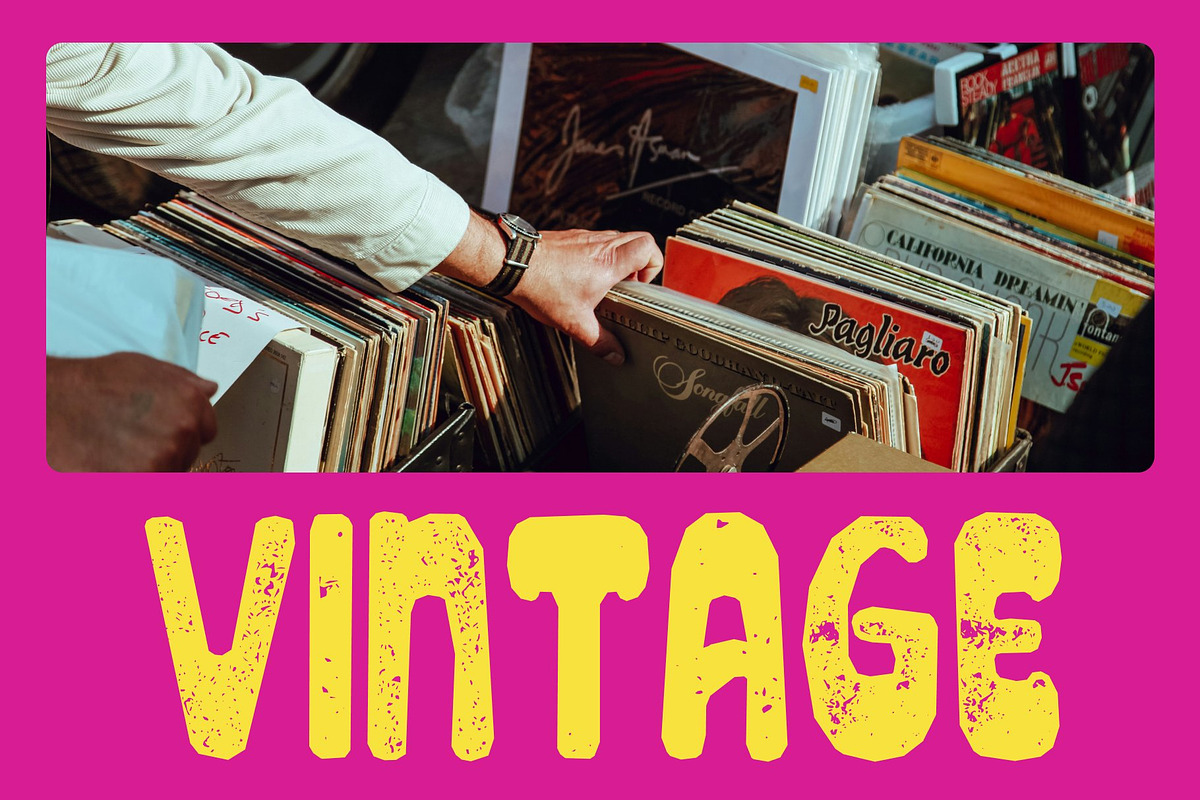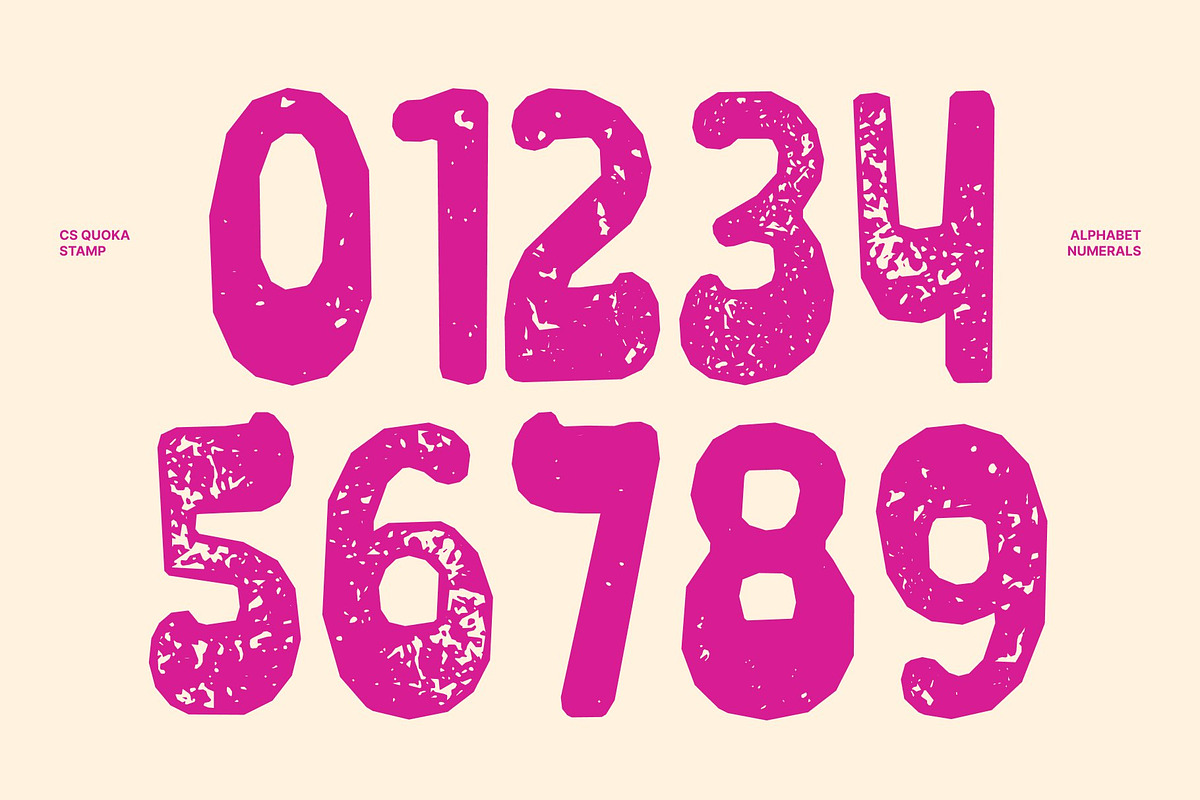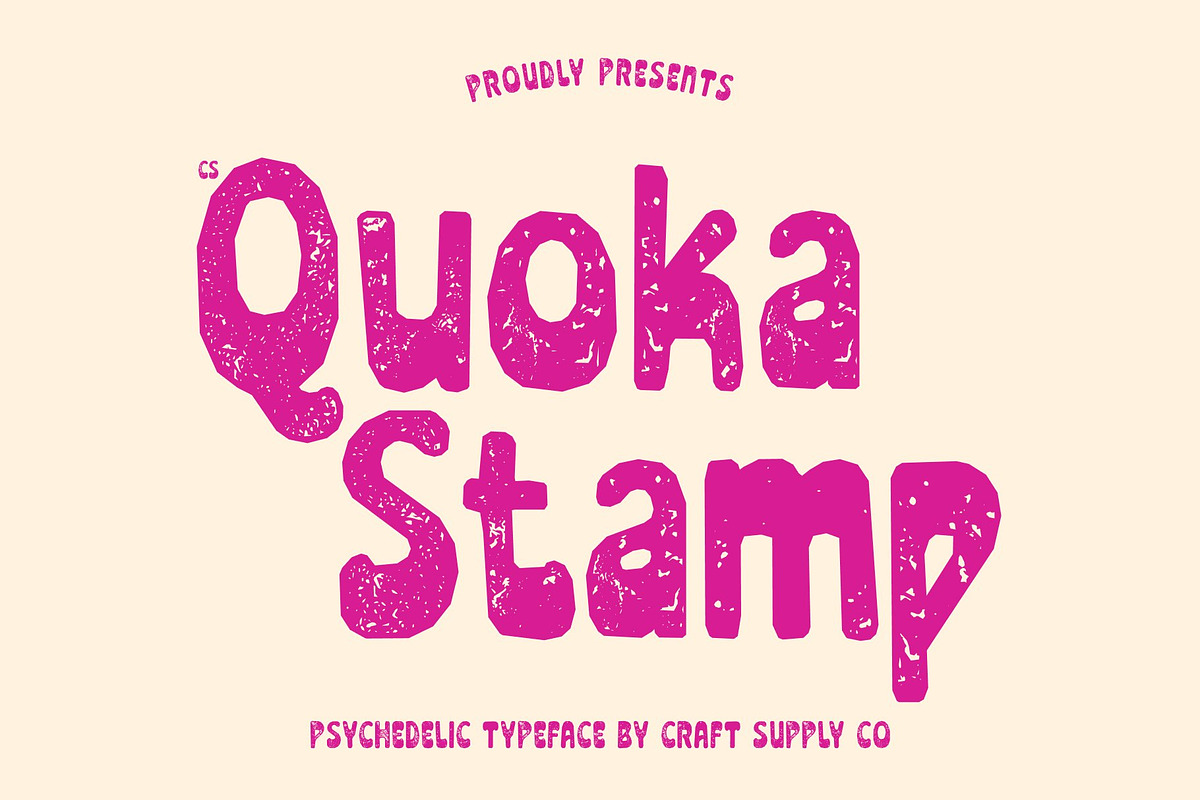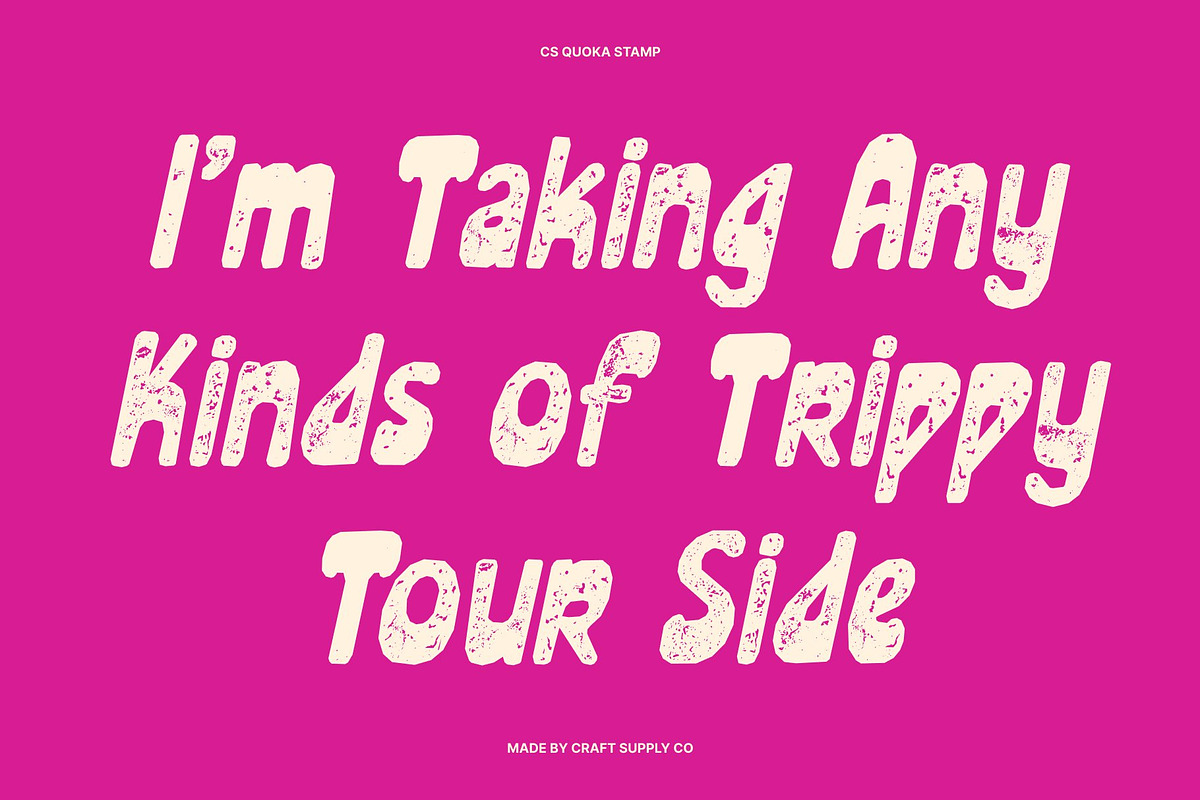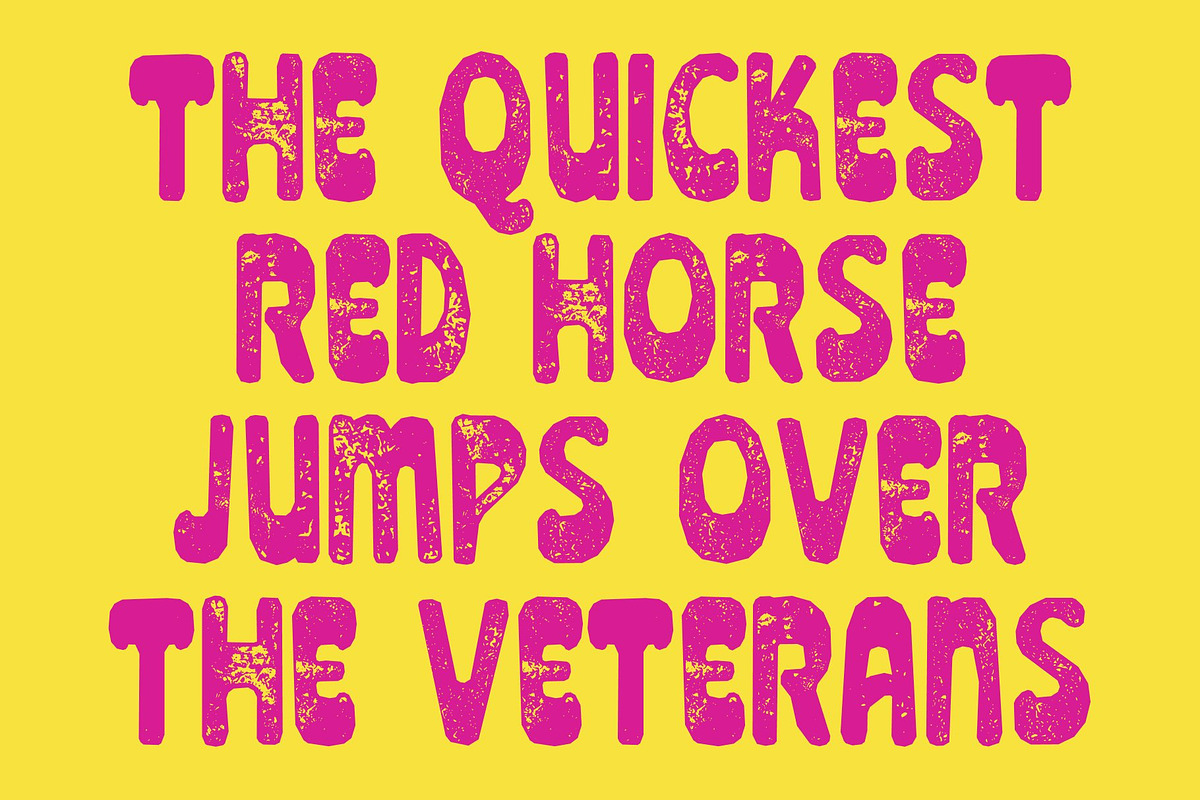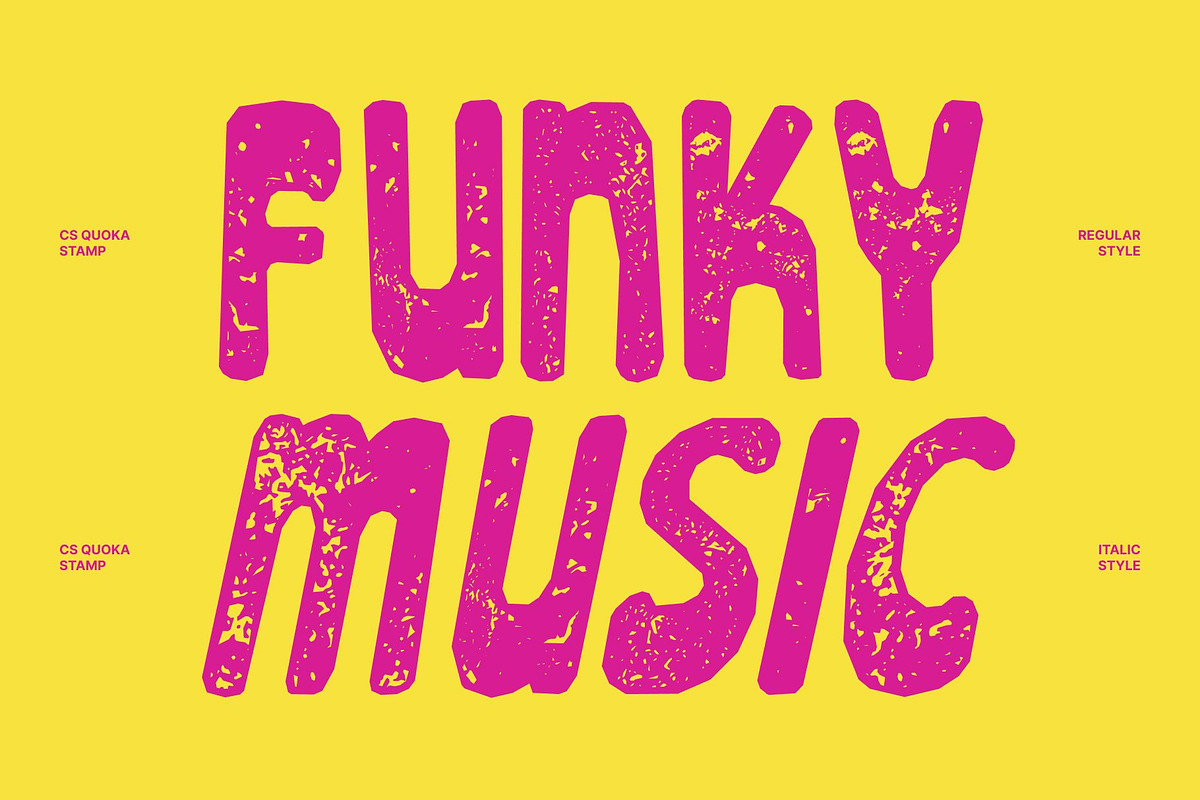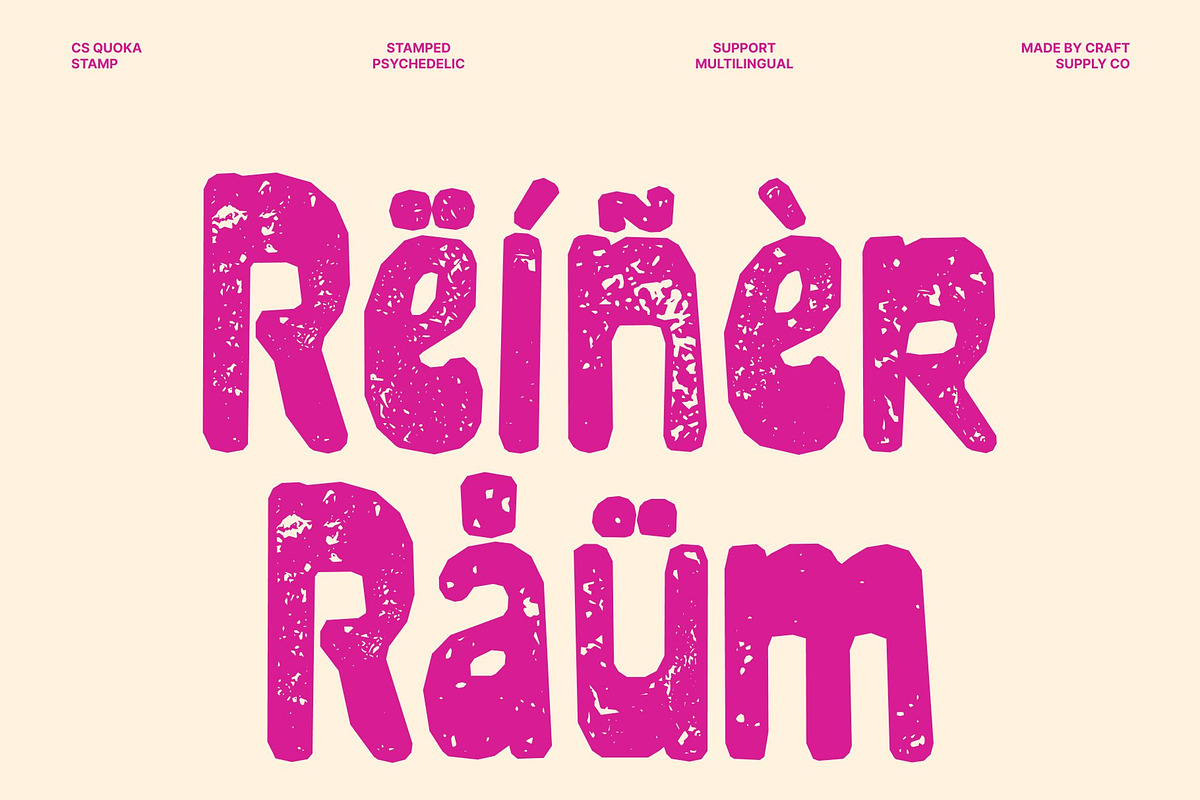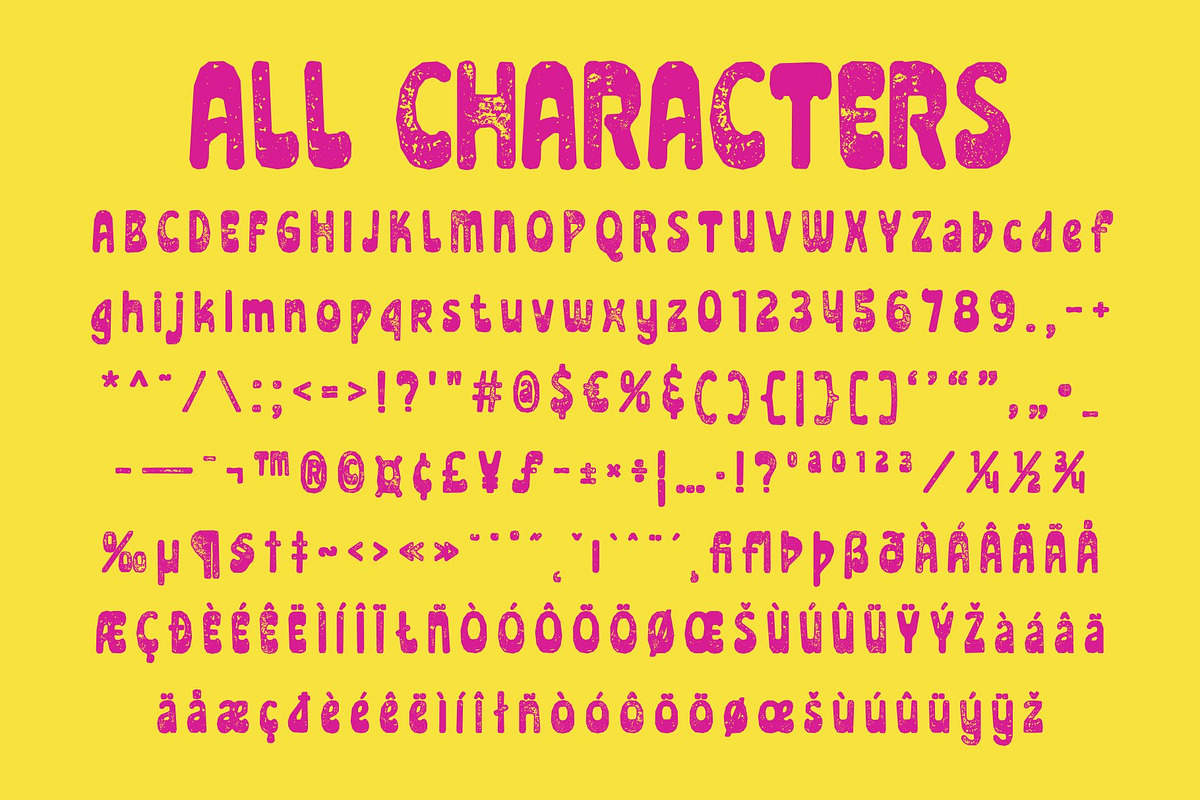
CS Quoka Stamp
CS Quoka Stamp – Retro Groovy Display Font: Where 70s Funk Meets Vintage Expression
Groovy Retro Shapes with Playful Energy This is a bold and expressive display font inspired by the iconic visual culture of the 1970s. Its groovy letterforms and decorative curves create a lively and nostalgic atmosphere filled with rhythm, movement, and personality. Every character radiates a funky and cheerful spirit, making the font perfect for designs that aim to feel playful, energetic, and visually bold.
Vintage 70s Style with Expressive Flair This font delivers a typographic voice that feels vibrant, stylish, and full of character. The flowing curves and bold proportions create a strong visual impact while preserving a fun and approachable personality ideal for eye-catching creative projects.
Stamped Texture with Artistic Vintage Character This font introduces a handcrafted texture inspired by traditional print techniques. The slightly rough and organic finish adds vintage character, artistic depth, and authentic old-design charm to every letter. This textured detail enriches the groovy forms with warmth and expressive individuality.
Perfect for Album Covers, Apparel, and Gig Posters This font perfect for book and album covers, apparel lines, gig posters, branding, merchandise, and retro-themed creative projects. Its funky shapes and textured detailing make it ideal for logos, event graphics, packaging, and visual identities that seek a nostalgic yet energetic appearance.
CS Quoka Stamp Regular
CS Quoka Stamp Italic